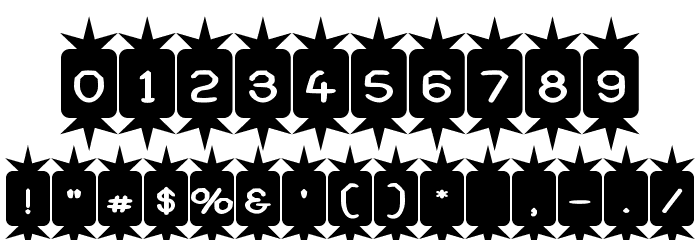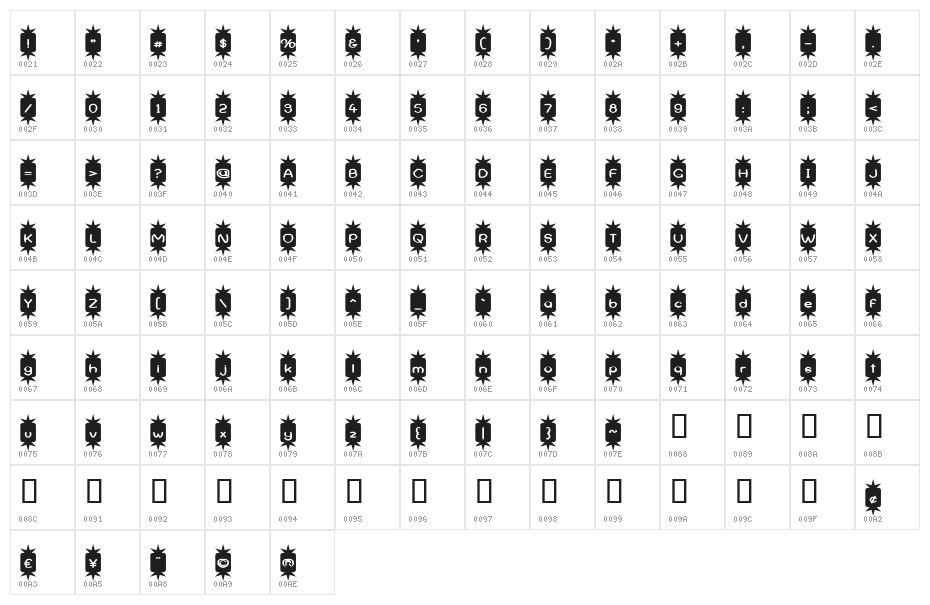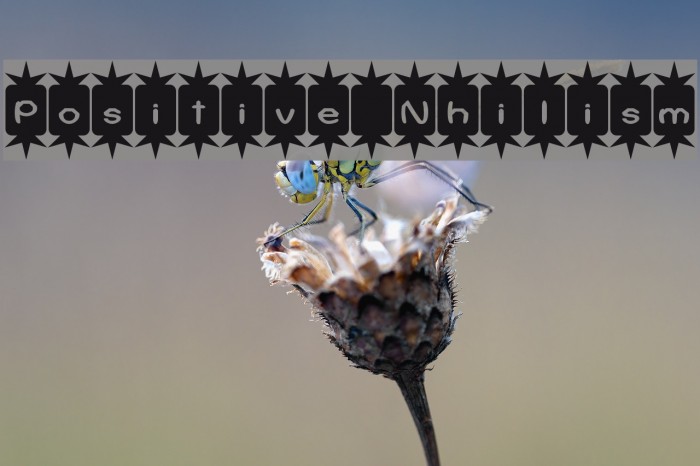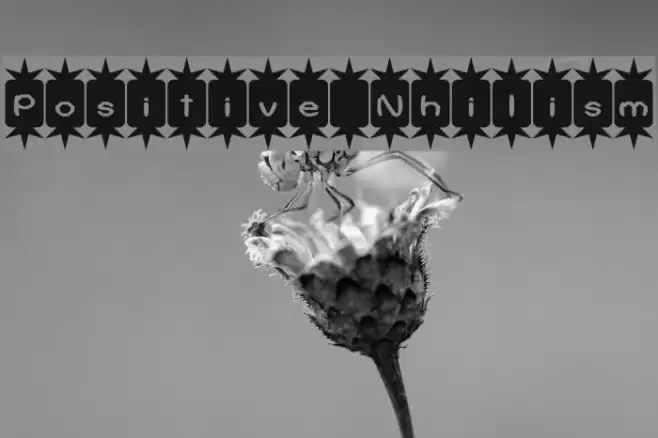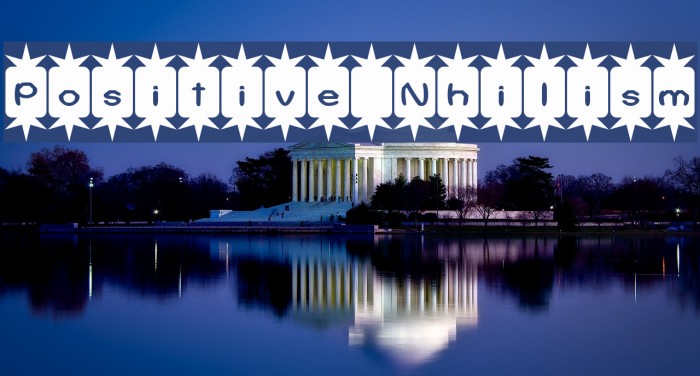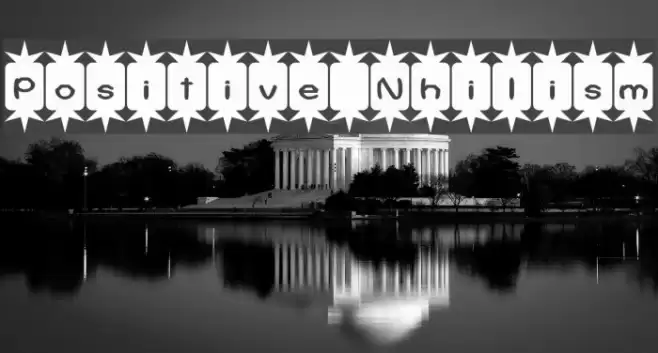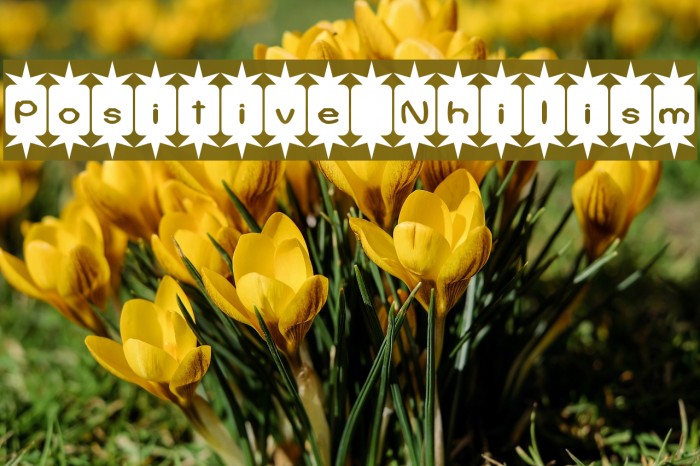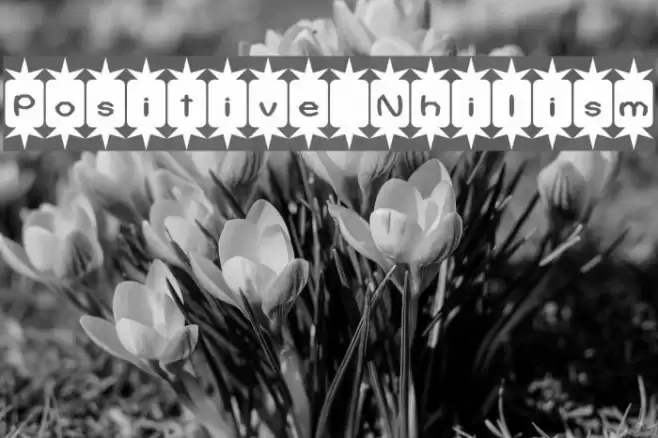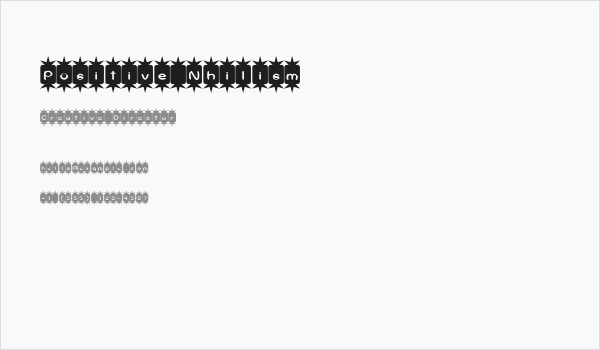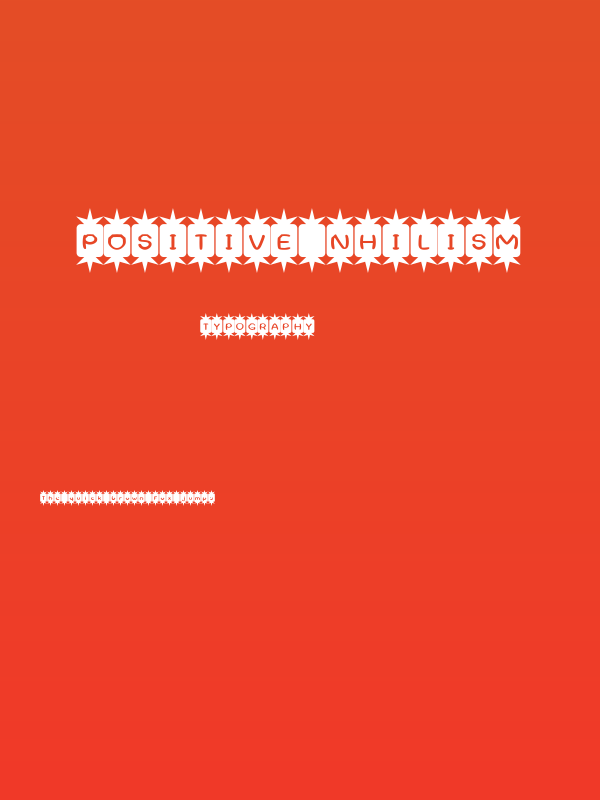
Positive Nhilism Font
Positive Nhilism Description
This font features a bold and striking design with each character enclosed in a starburst-like shape, creating a visually impactful appearance. The characters themselves are sans-serif with a modern and playful style, offering a unique blend of geometric and organic forms. The high contrast between the thick strokes of the letters and the sharp edges of the surrounding shapes enhances its decorative appeal. This font is ideal for projects that require a strong visual statement, such as posters, logos, or branding materials.
| Proposed Projects | Ideal for posters, logos, branding, and any design requiring a bold visual impact. |